Browse & save: refined wedding fonts for invitations, save-the-dates, menus, monograms, signage, and website headers. Curated styles for romantic scripts, classy serifs, modern minimal, and signature handwriting.
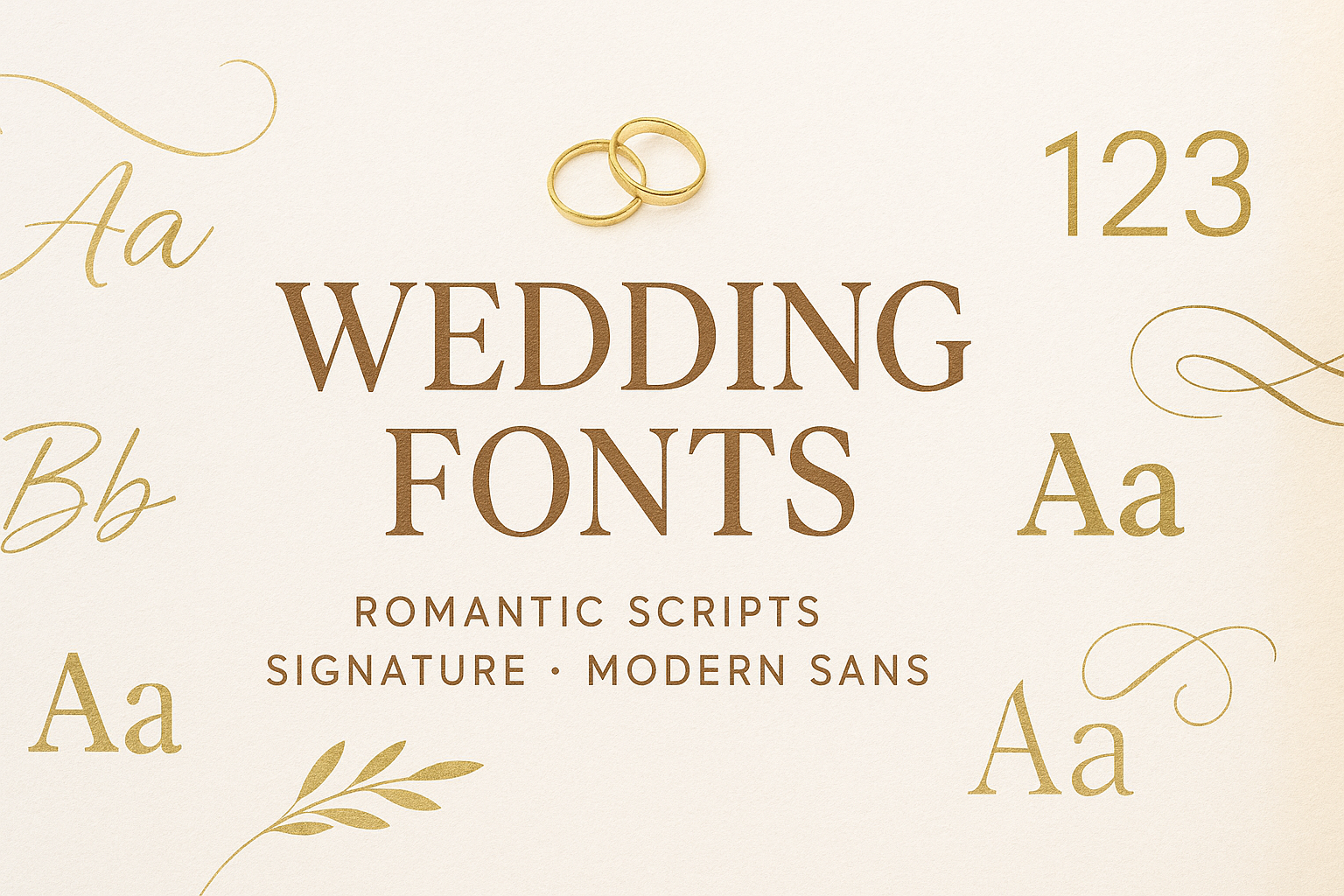
Best wedding font styles (what works & why)
Romantic Script / Calligraphy
Flowing, graceful letterforms for names, “Save the Date”, and headline moments. Keep body text in a neutral serif/sans for legibility.
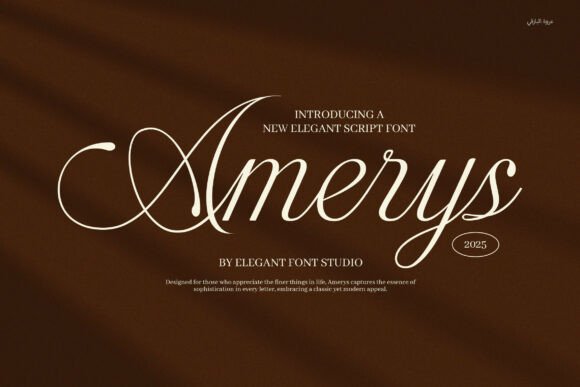
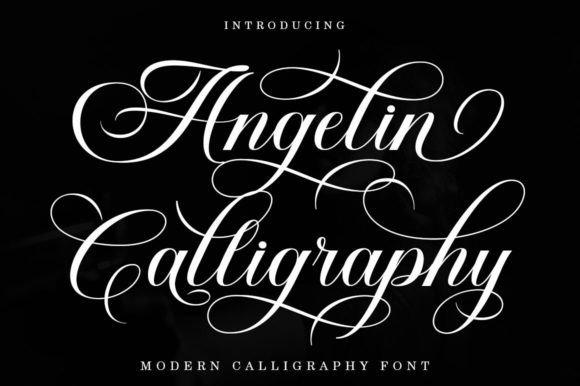
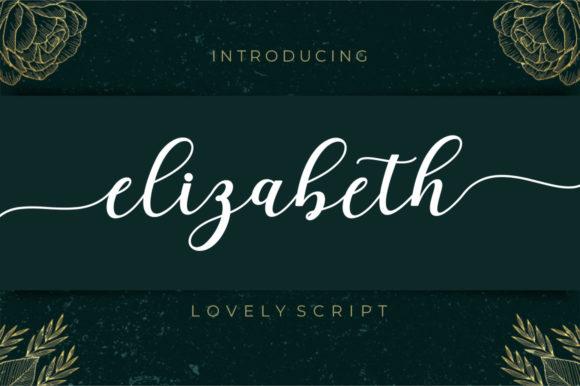
Signature / Handwritten
Personal, editorial vibe for couples’ names, subheads, and accents. Often monoline or pen-script with stylish alternates.
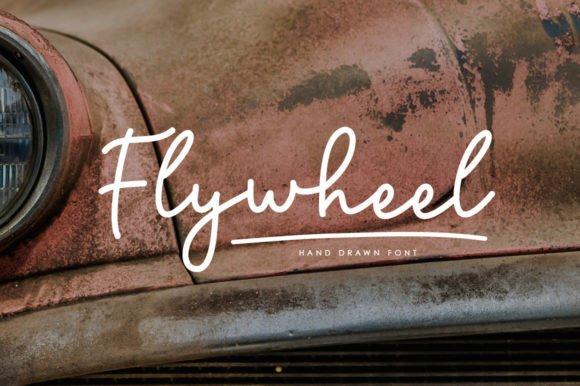
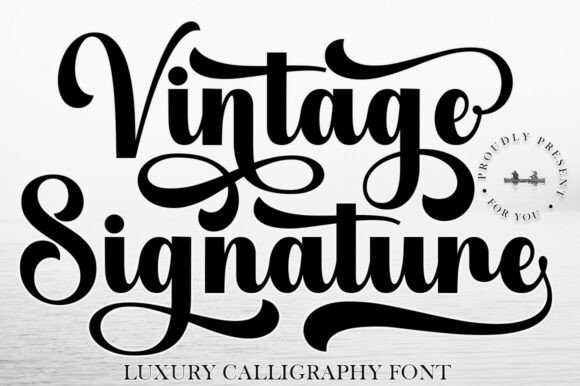
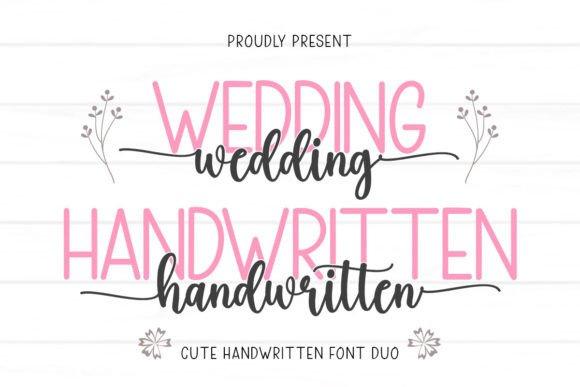
Elegant Serif
Timeless and formal for invitations, programs, and body text. High-contrast serifs feel luxurious; transitional serifs read beautifully in print.
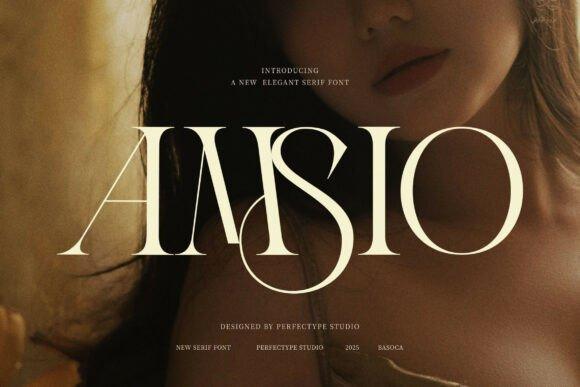
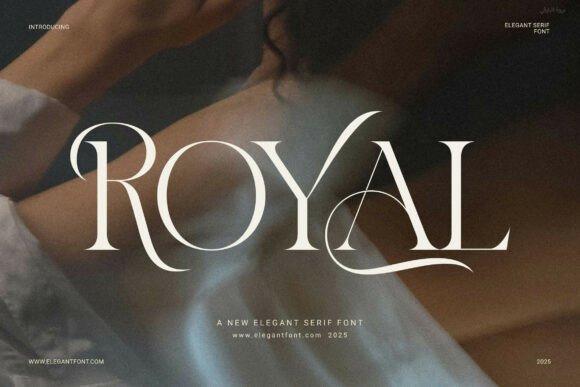
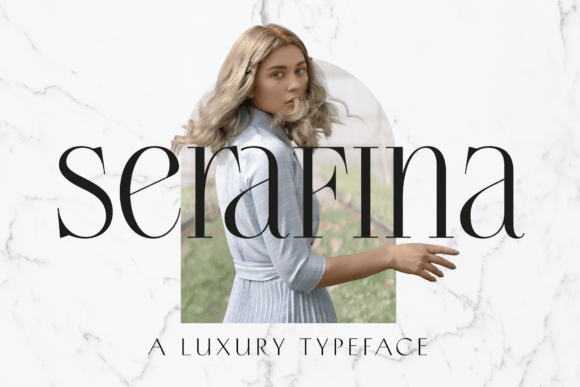
Modern Sans (Minimal)
Clean, contemporary look for all-caps headings, menus, and websites. Add subtle tracking for an airy luxury feel.
Monogram & Display
Initials, crests, and ampersands for seals, wax stamps, and logos. Look for ligatures, ornamental sets, and small-caps.
Vintage / Rustic
Boho, outdoor, and heritage vibes for signage and favors. Pair with texture (paper grain, letterpress, foil, deckle edges).
Font pairing recipes (copy/paste)
- Romantic Script + Neutral Serif body – flowing names + readable details.
- Signature Script + Small-caps Sans – editorial and modern for invites & websites.
- Elegant Serif + Mono digits – use tabular figures for dates, tables, and prices.
- Minimal Sans + Slim Serif – clean headline with refined secondary info.
Rule of thumb: one expressive star + one quiet helper. Keep contrast in weight/width, not chaos.
Color & layout tips
- Contrast first: dark on light (or vice versa). Use metallic/foil as an accent, not the only contrast.
- Tracking: small-caps sans with +30–60 tracking feels upscale; avoid over-swashing scripts.
- Numerals: choose fonts with tabular figures (monospaced numbers) for menus, seating charts, and dates.
- Print realism: add letterpress grain or subtle paper texture; keep leading generous.
- OpenType features: enable stylistic alternates, ligatures, and oldstyle/tabular numerals as needed.
Ready-to-use copy (steal these lines)
- Save the Date – [Month Day, Year]
- Together with their families – [Name] & [Name]
- Reception to follow • Kindly reply by [Date]
- Seating Chart • Table No. • Menu • Order of Events
FAQ
Which fonts are safest for wedding body text?
Neutral serifs (transitional/modern) and open sans-serifs are the most readable for details and long copy. Keep script fonts for names and highlights.
Script or signature – when should I use each?
Script is romantic and formal for names, headings and big moments; signature is modern/editorial for subheads and accents. Pair either with a quiet serif/sans.
How do I get perfect numbers for dates and tables?
Choose families with tabular figures (monospaced numerals), so 10/100/1000 align neatly on menus and seating charts.
Any quick pairing ideas that always work?
Elegant Serif for body + romantic Script for names; or Modern Serif headline + Clean Sans body for a minimal look.